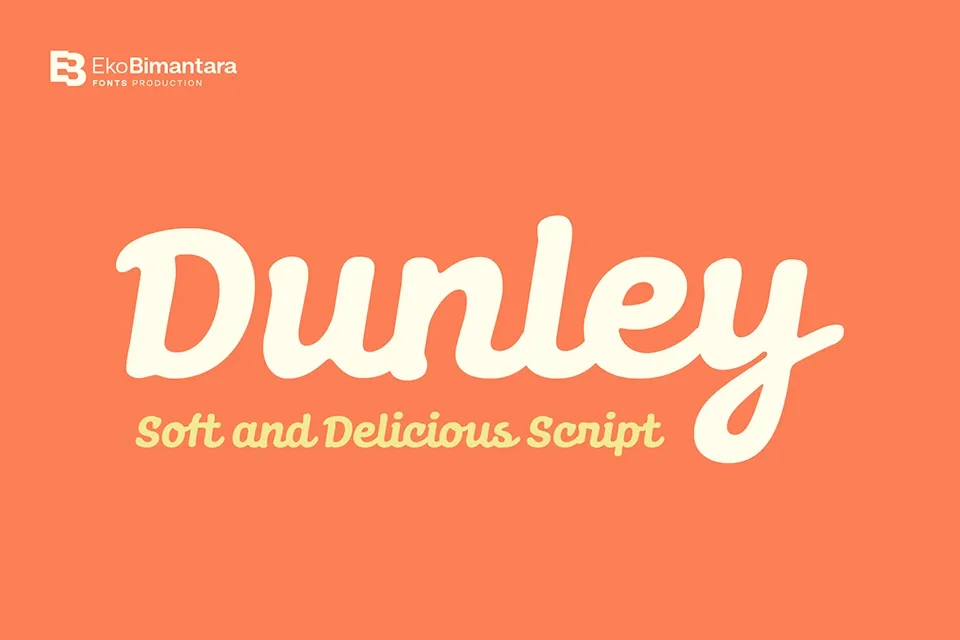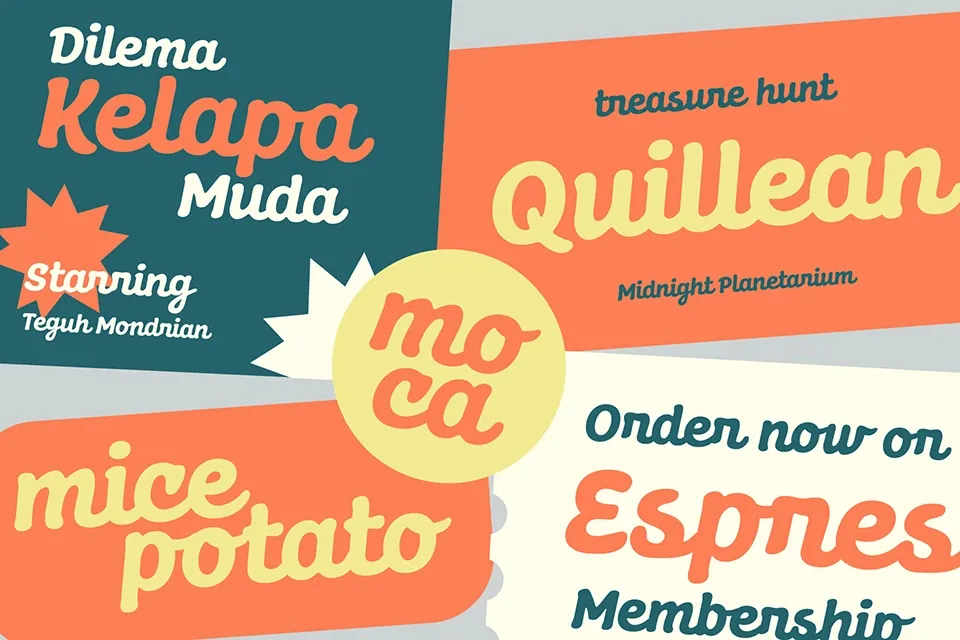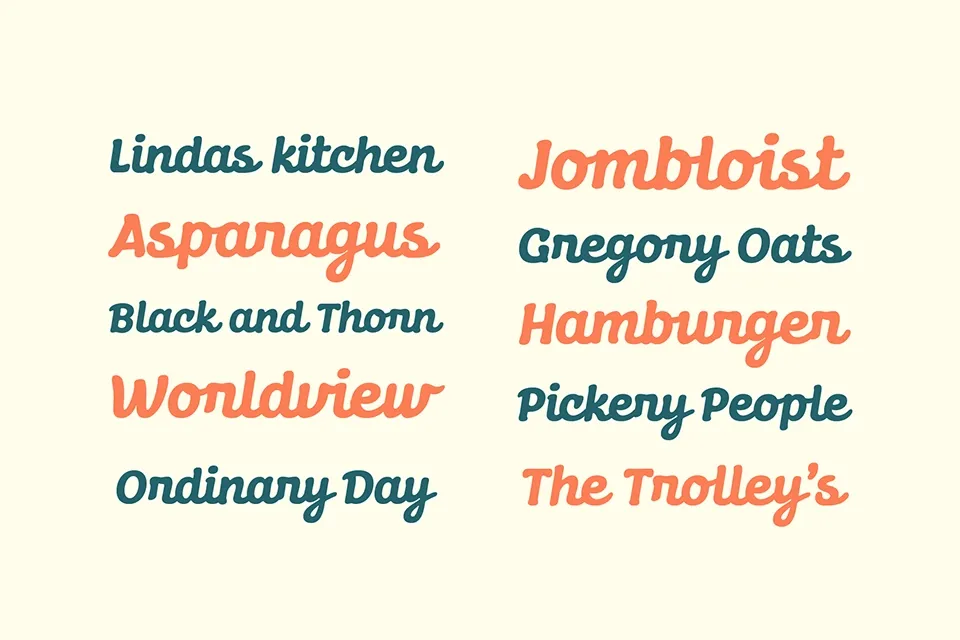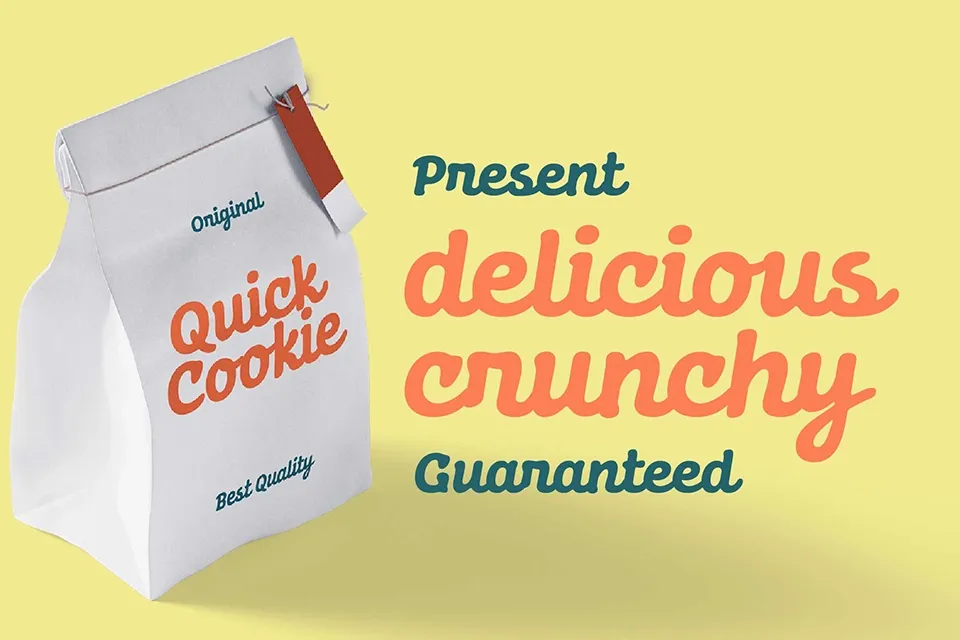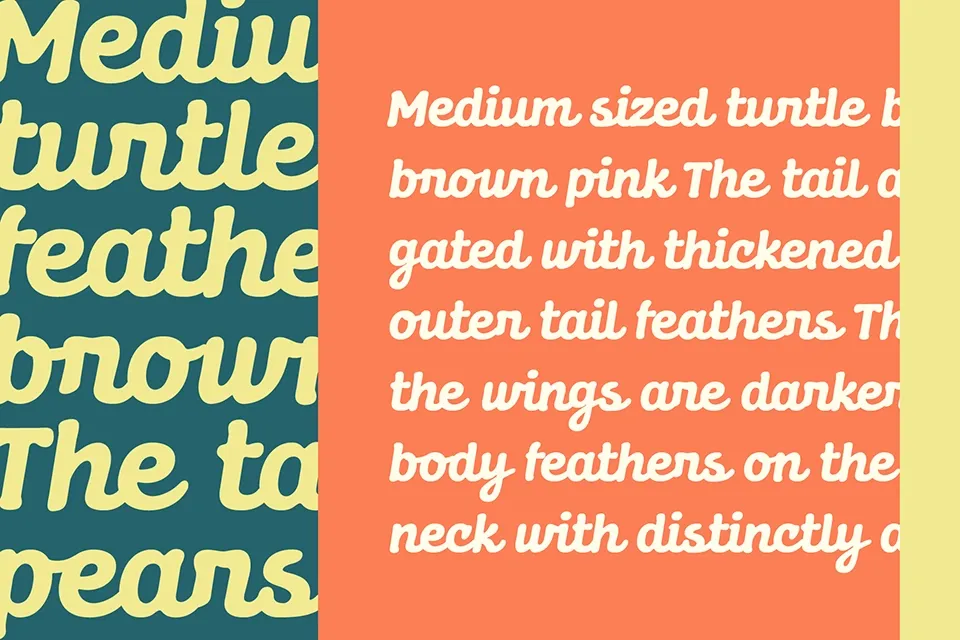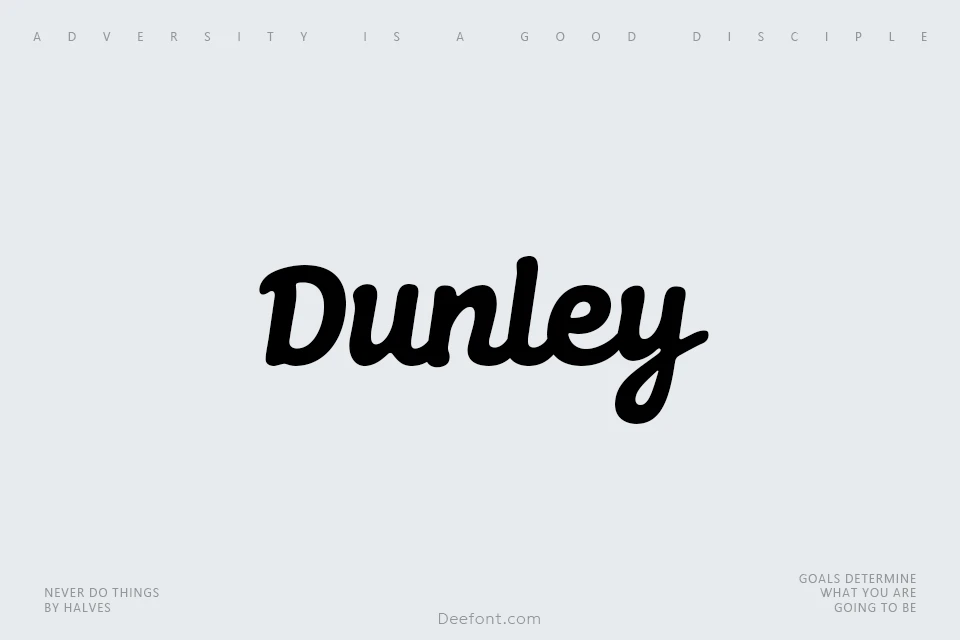
Dunley Font
Dunley Font is a charming handwritten script font designed by Eko Bimantara. This soft and delicious typeface features smooth flowing curves and thick brush-like strokes that exude warmth and personality. With its semi-cursive style and sweet aesthetic, Dunley is perfect for a variety of creative projects including branding, logos, product packaging, social media graphics, and display typography. Its handcrafted feel adds an authentic touch to any design while maintaining excellent readability. Available in multiple formats for versatility across different platforms and applications, Dunley brings a perfect balance of casual elegance and playful character to your creative work. Add a touch of warmth and personality to your designs with this charming script font.